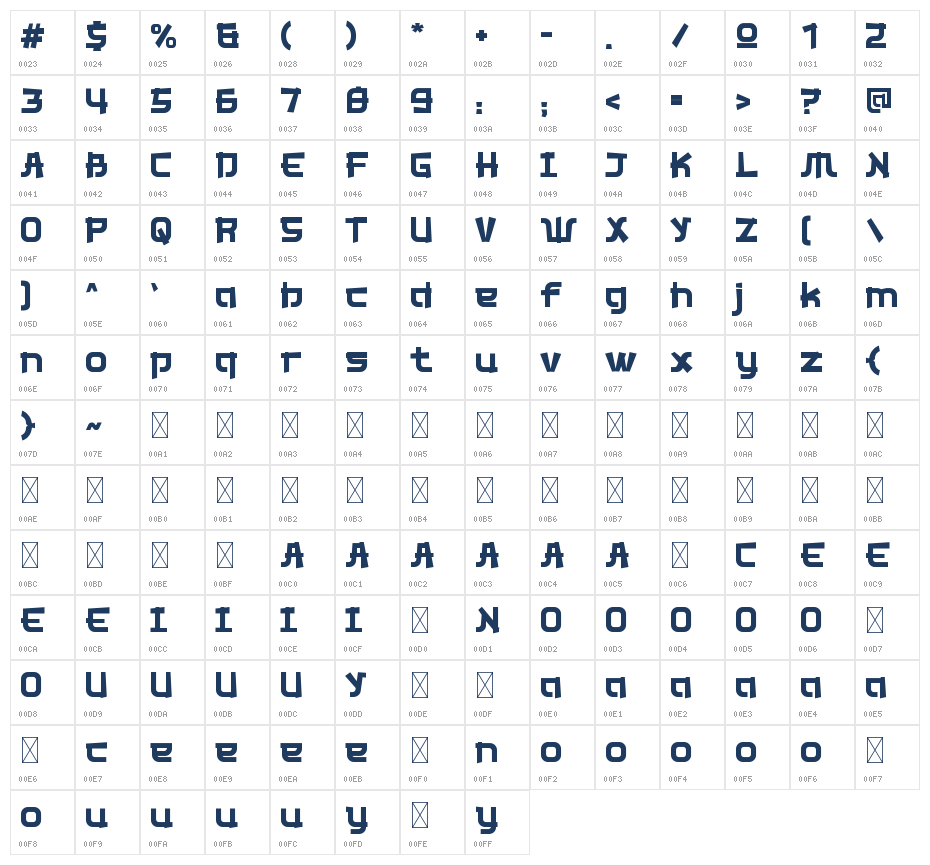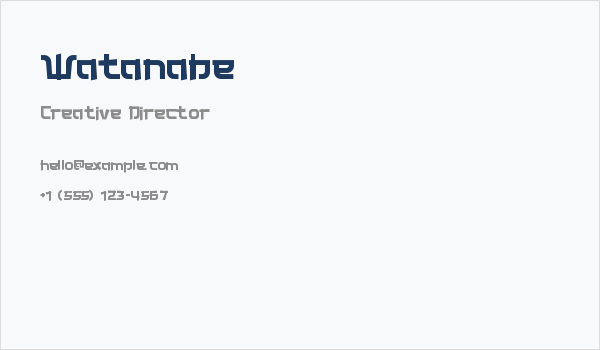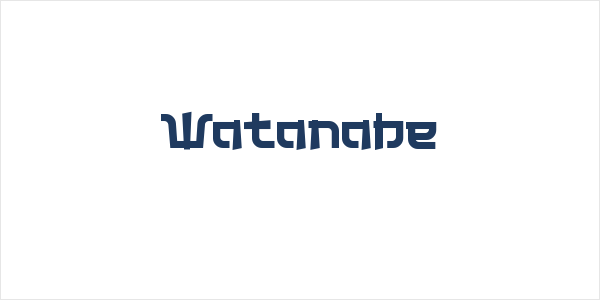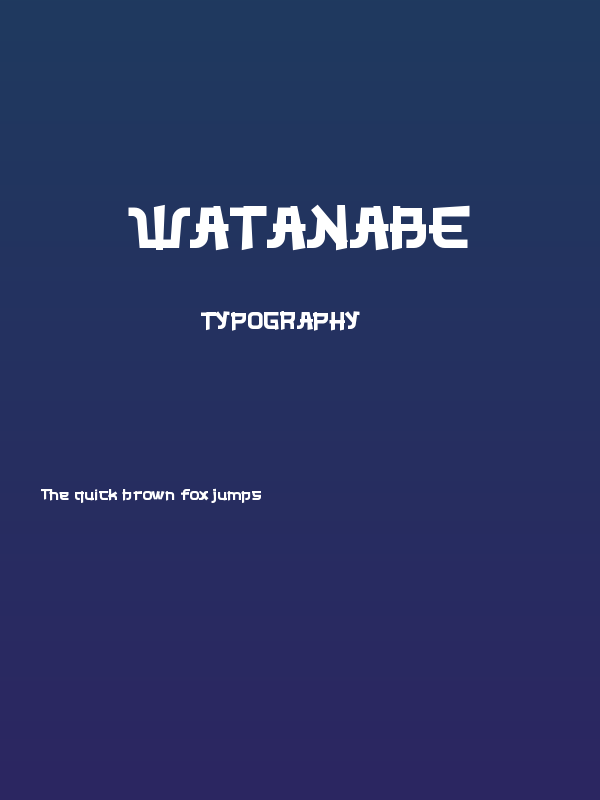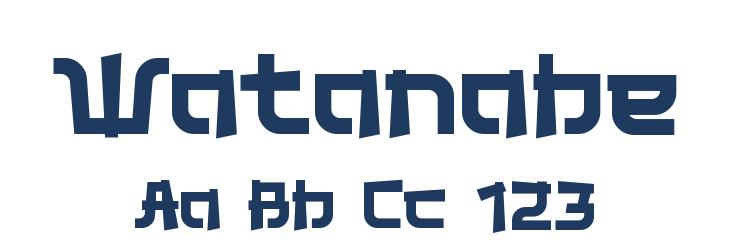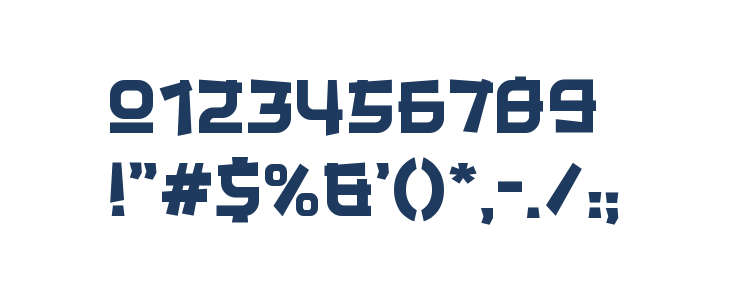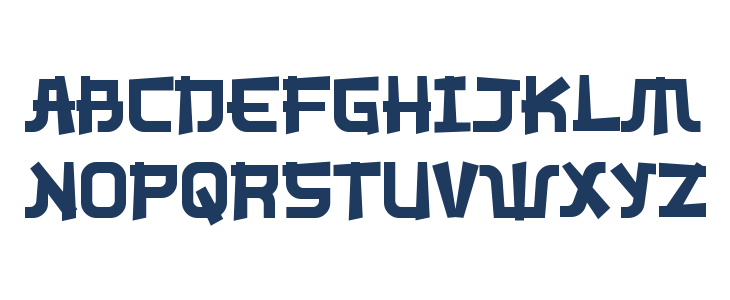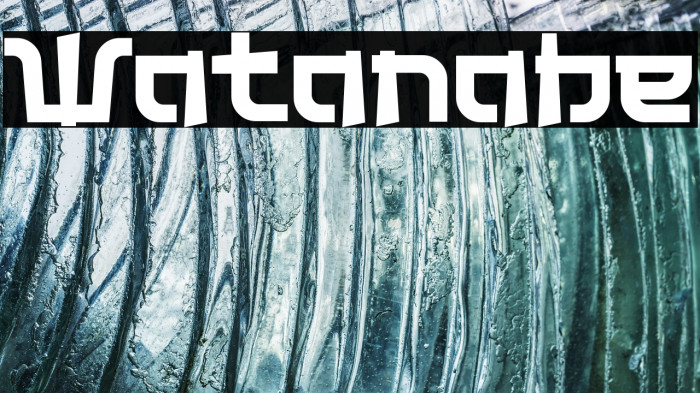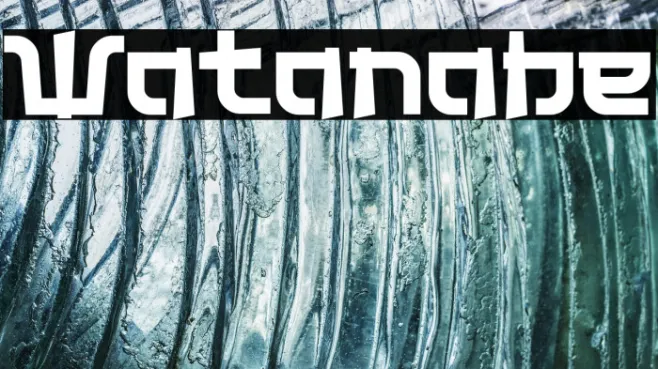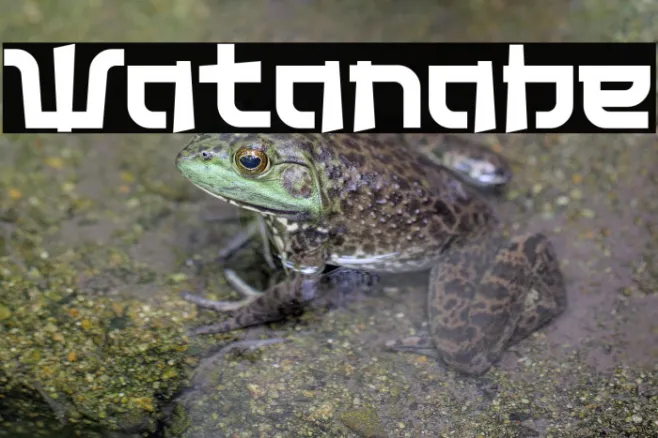
Watanabe Font
Watanabe Description
A bold, geometric, and stylized display font with a blocky, angular appearance.
| Overall Style | Modern, Geometric, Edgy |